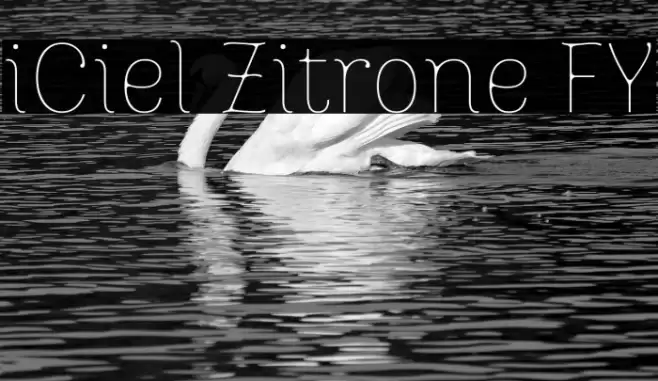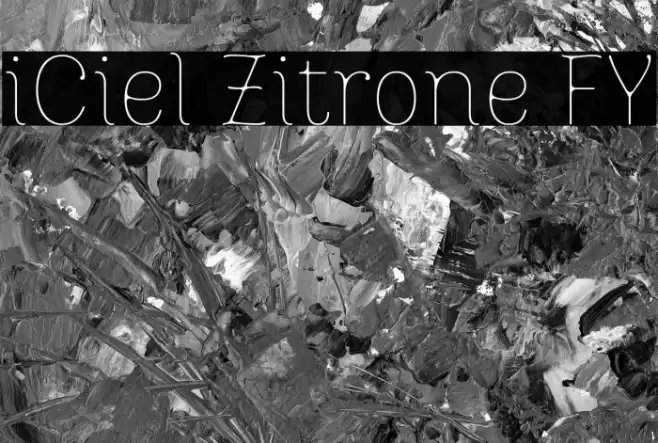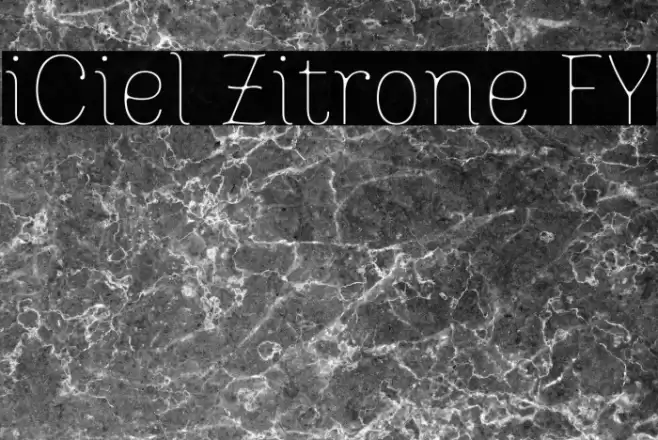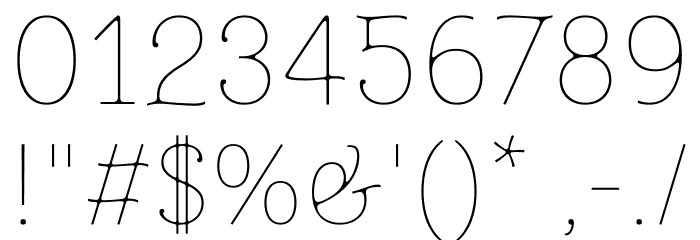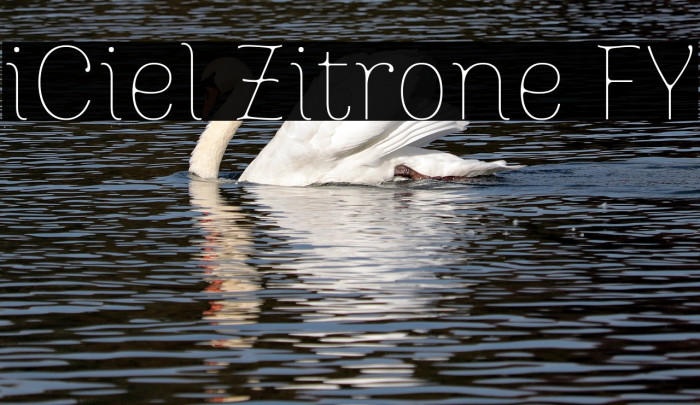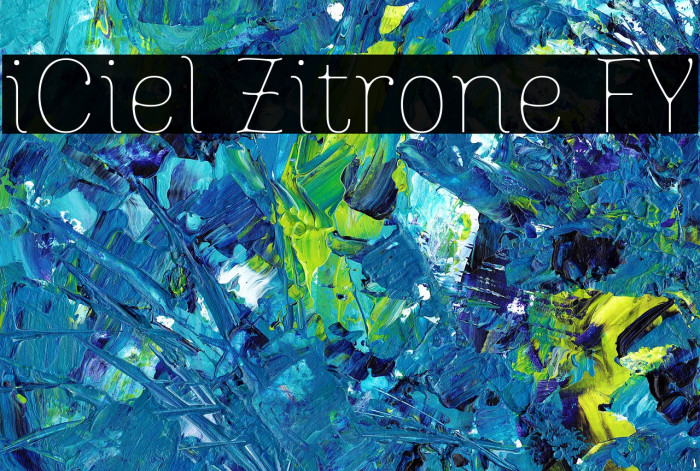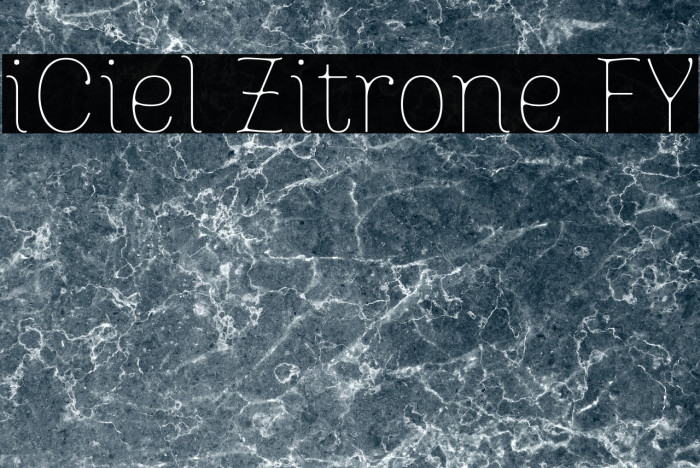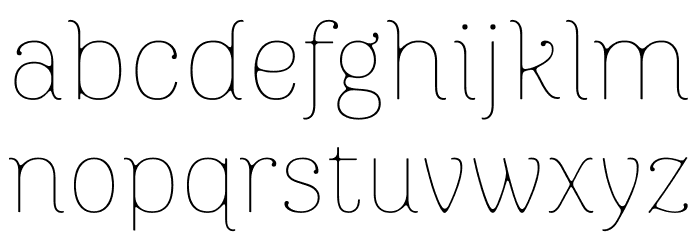
iCiel Zitrone FY Font
iCiel Zitrone FY Description
This font features a unique and playful design with a handwritten feel. The characters are slender and elongated, with subtle curves that add a whimsical touch. The uppercase letters maintain a consistent height, while the lowercase letters exhibit a slight variation in size, contributing to the font's casual and friendly appearance. The numerals are clear and easy to read, matching the style of the alphabet. Special characters are thoughtfully designed to complement the overall aesthetic. This font's distinct style makes it suitable for creative projects that require a personal and approachable look.
A playful, handwritten-style font with slender, elongated characters from Uncategorized fonts.
- Proposed Projects: Ideal for greeting cards, invitations, children's books, and creative branding projects.
- Overall Style: Playful, Whimsical
- Use Case: Headlines, Creative projects, Invitations